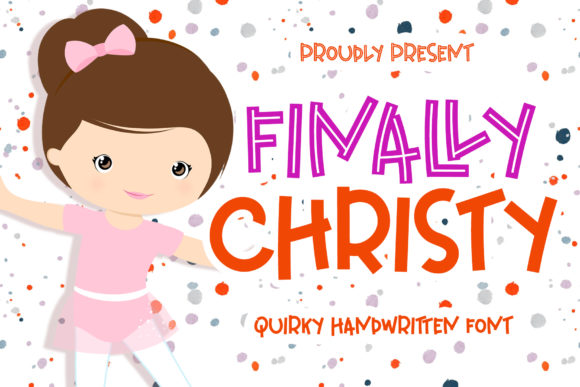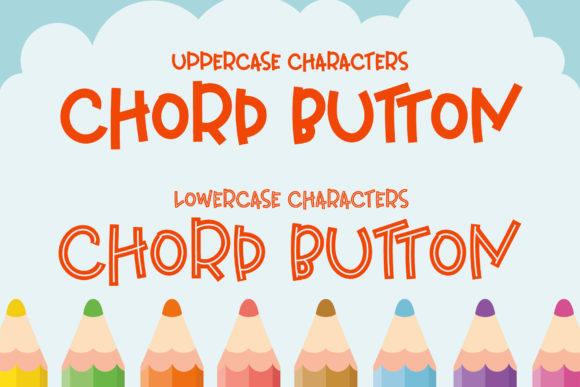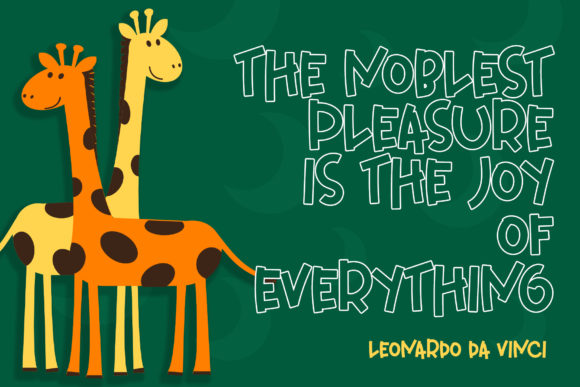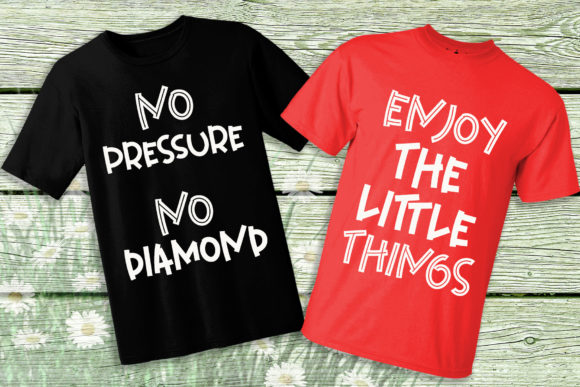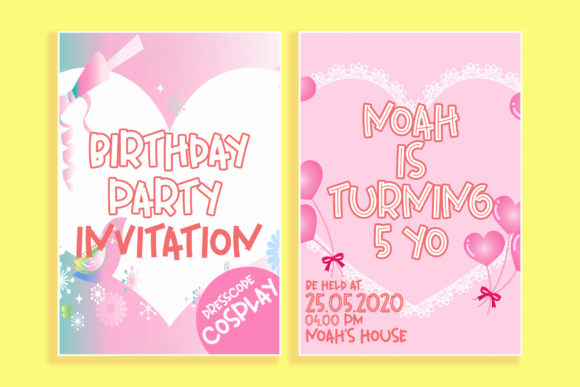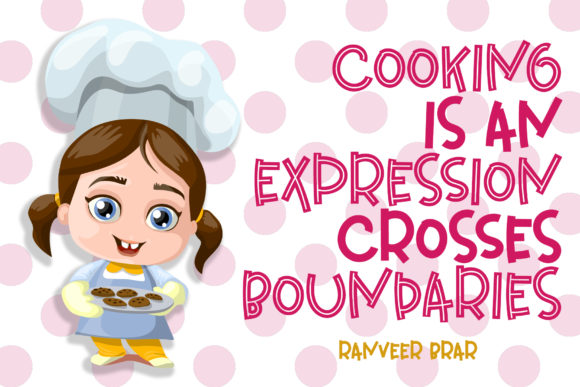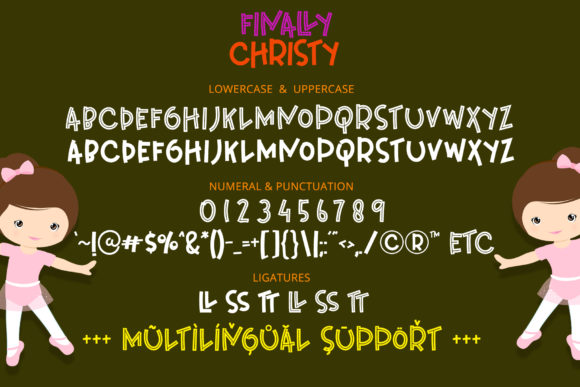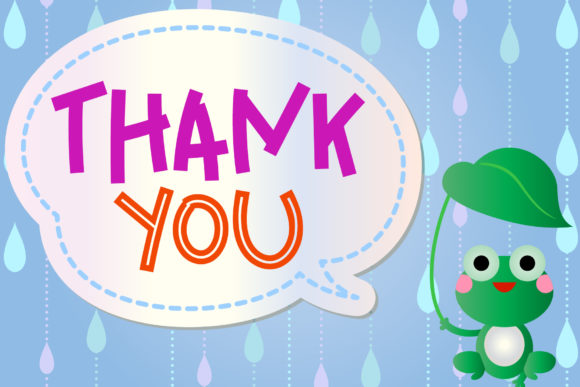
Finally Christy Font
Finally Christy embodies fun, quirkiness and authenticity. Use this gorgeous and unique handwritten font to bring any DIY project to life!